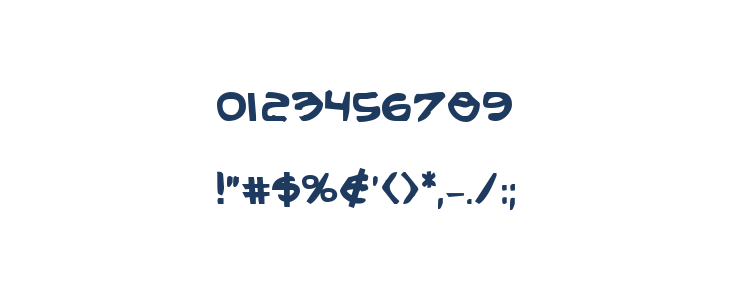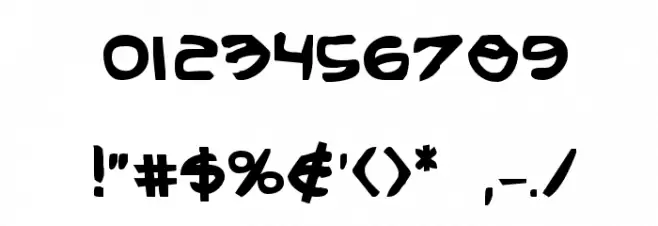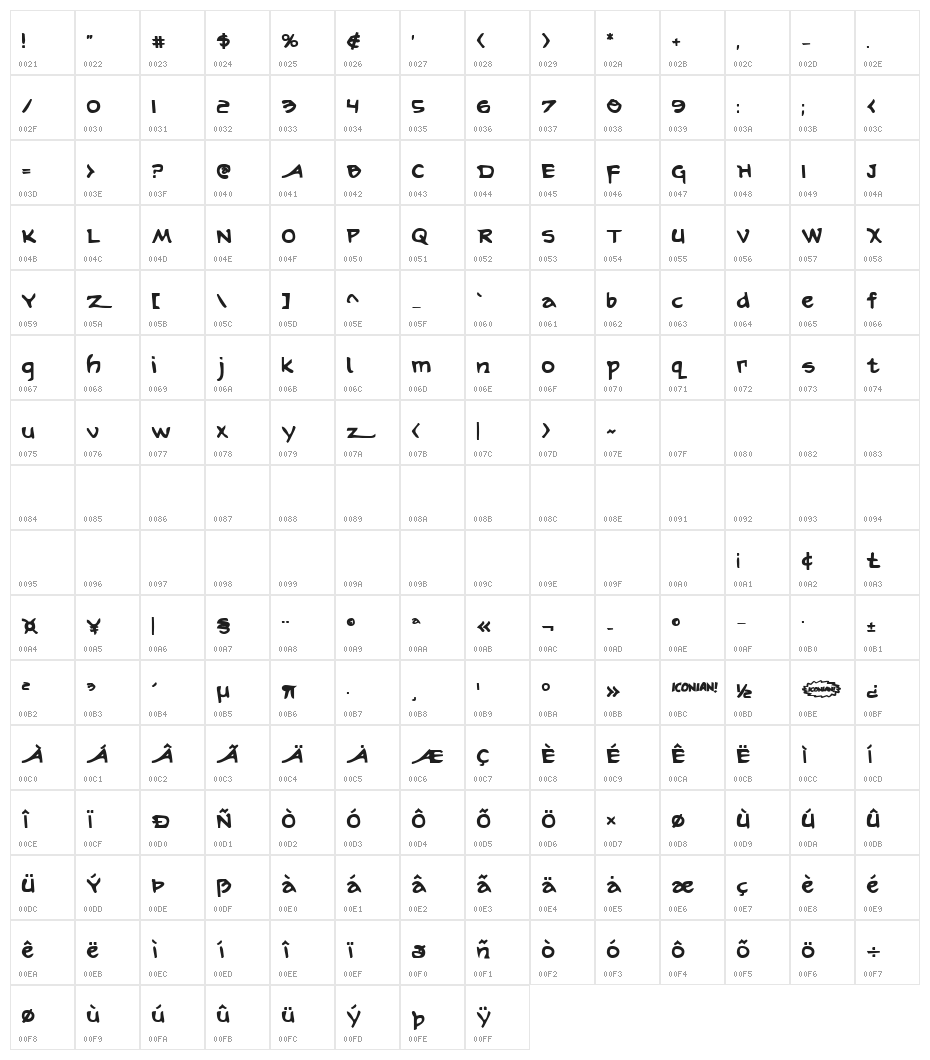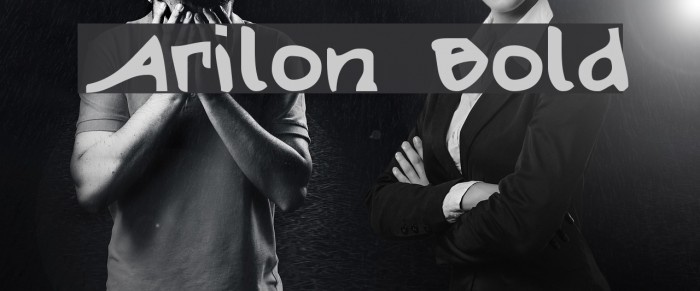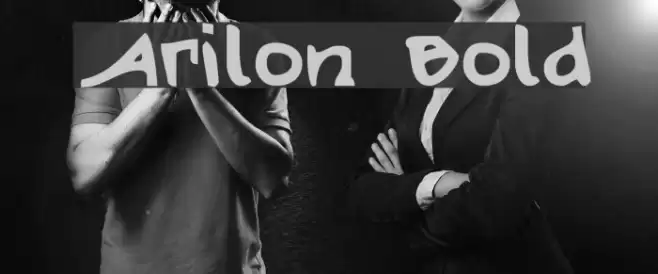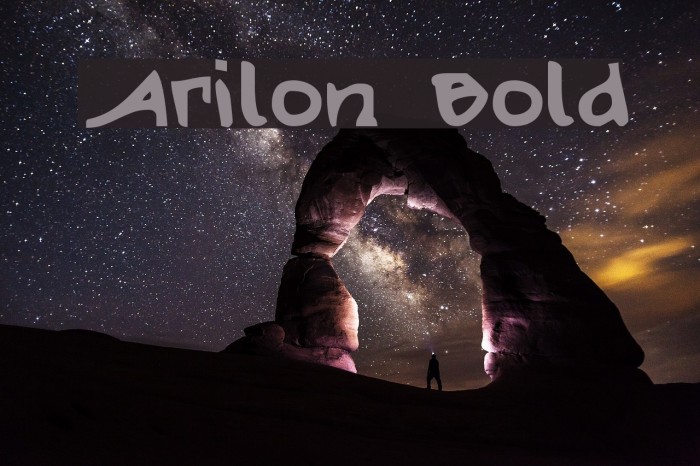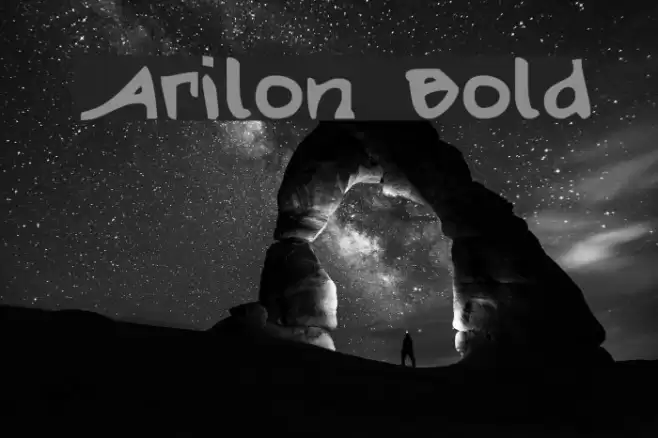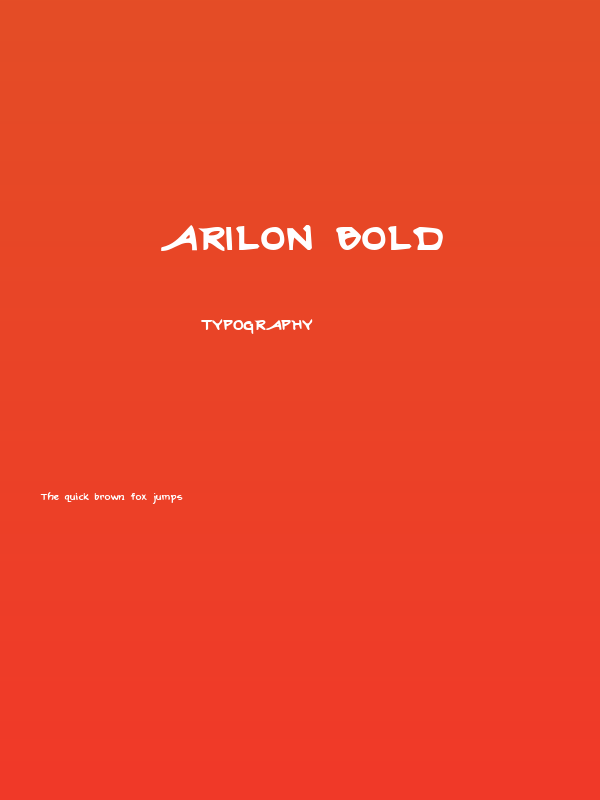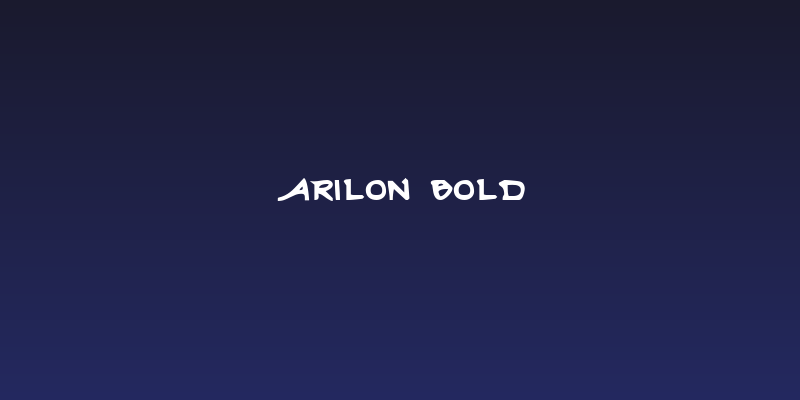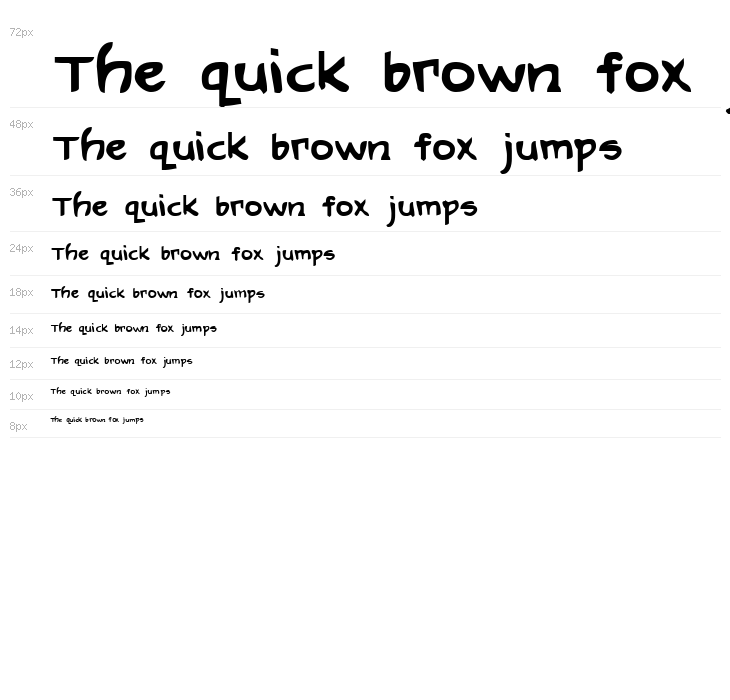
Arilon Bold Font
Arilon Bold Description
This font features a bold and playful design with a handwritten aesthetic. The letters are characterized by their uneven strokes and slightly irregular shapes, giving them a dynamic and informal appearance. The uppercase letters have a whimsical flair, while the lowercase letters maintain a consistent style that complements the overall look. The numbers and special characters follow the same playful theme, ensuring a cohesive design throughout. This font's unique style makes it stand out, perfect for projects that require a touch of creativity and personality.
| Overall Style | Playful, Creative |
| Proposed Projects | Ideal for children's books, creative posters, playful branding, and informal invitations. |